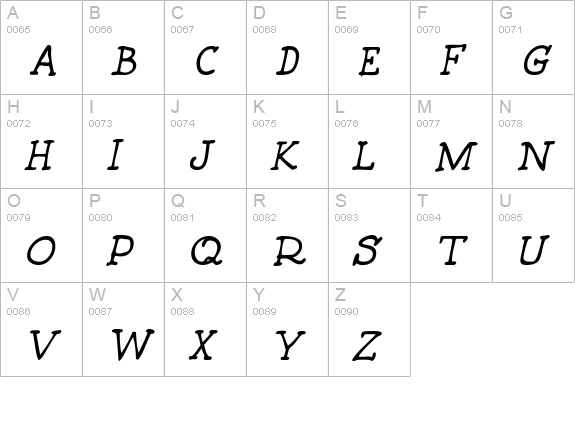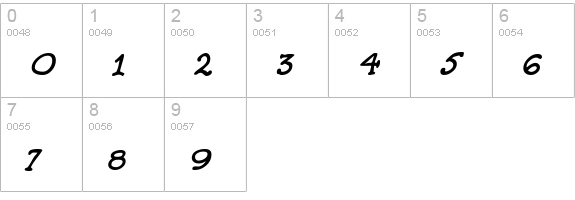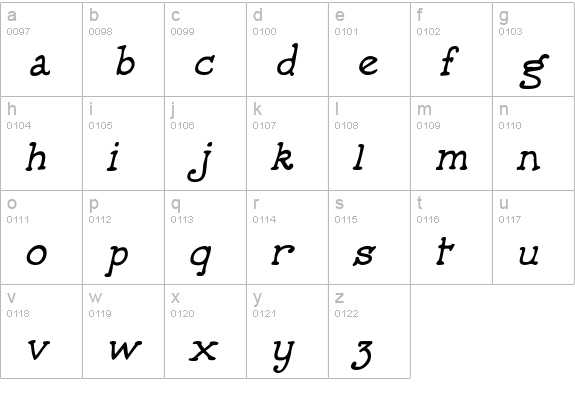
5thGrader Bold Italic Font Details
5thGrader Bold Italic is a strong, high-contrast, italic variant in the 5thGrader typeface family \xE2\x80\x94 well suited to headlines, attention-grabbing titles, and strong calls-to-action.
Introducing 5thGrader Bold Italic font, a vibrant and playful typeface designed to bring a touch of whimsy to your projects. With its bold and italicized characters, this font exudes a sense of creativity and youthful energy, making it perfect for various design applications. Whether you're working on a school project, creating eye-catching posters, designing invitations, or crafting social media graphics, 5thGrader Bold Italic font will add a fun and dynamic element to your work. Its distinctive style is sure to capture attention and leave a lasting impression on viewers. Best of all, 5thGrader Bold Italic font is available for free download at FontsMarket.com. So go ahead and unleash your creativity with this charming and versatile typeface. Let your imagination run wild and watch as 5thGrader Bold Italic font brings your designs to life!